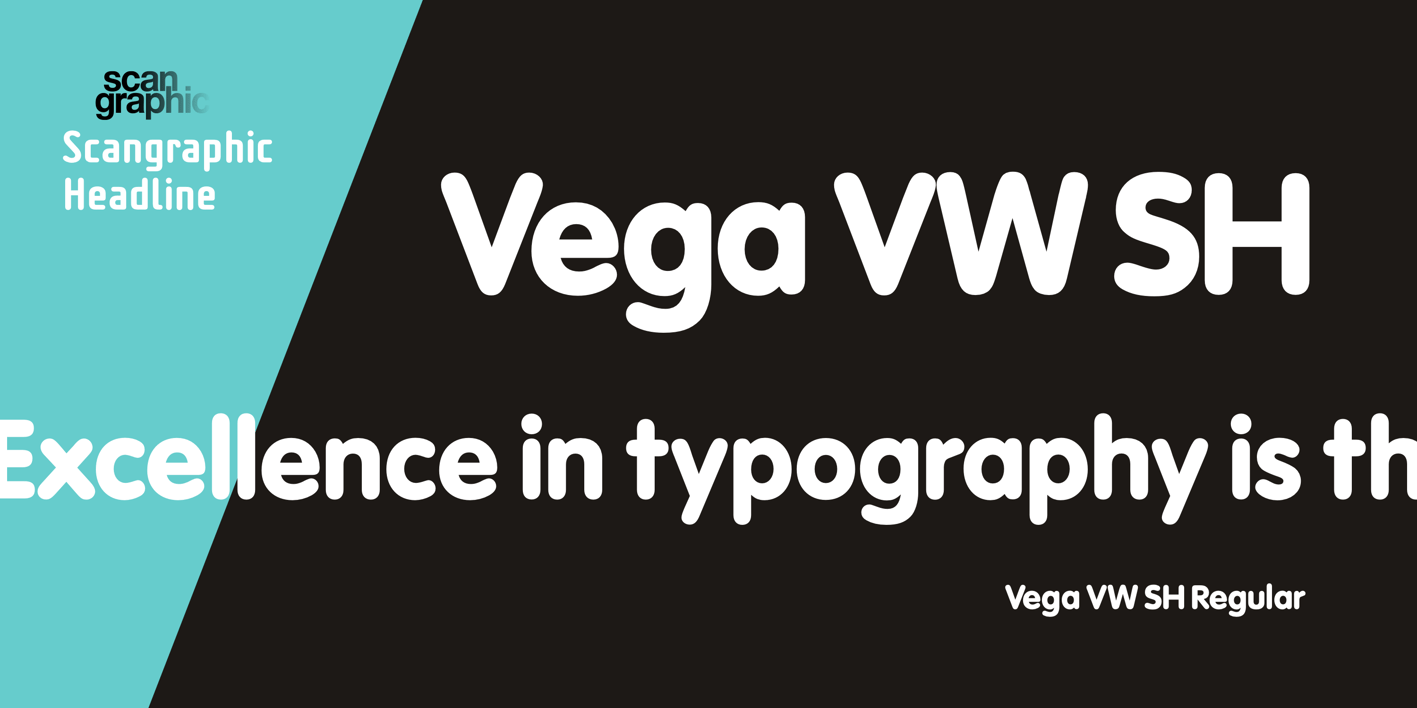
Vega SH Font is perfect for astronomy research publications, space observatory branding, stellar navigation interfaces, cosmic jewelry designs, planetarium exhibition materials, celestial photography credits, star-gazing event promotions, astronomical equipment packaging, space-themed luxury products, and brilliantly stellar marketing communications.
Vega SH Font is exciting because it captures the brilliant luminosity and navigational importance of one of the brightest stars in our night sky with its precisely radiant letterforms that shine with the steady brilliance of stellar light and embody the reliable guidance that Vega has provided to navigators throughout human history. Its luminously sophisticated character design reflects both the scientific precision of astronomical observation and the romantic wonder that draws humanity to contemplate the infinite cosmos, making it perfect for brands celebrating stellar excellence and cosmic inspiration.
Vega SH Font family includes ultra-thin, thin, light, regular, medium, bold, and black weights, each with corresponding italic versions. The font family also features stellar ornaments, astronomical ligatures, celestial symbols, and cosmic decorative elements that enhance its brilliant aesthetic and space-age versatility.
This brilliantly stellar typeface represents the perfect fusion of astronomical precision and cosmic beauty. Vega SH Font Free Download enables designers to explore its stellar possibilities before making a commercial commitment. The font's ability to convey both scientific accuracy and celestial wonder makes it ideal for space organizations, luxury brands, and technology companies targeting audiences fascinated by astronomical excellence and cosmic sophistication.
Whether you're developing space research identities, creating astronomical event materials, or designing cosmic-inspired communications, Vega SH Font brings an unmistakable sense of stellar brilliance and astronomical authority to every project. Its radiant character and celestial heritage create powerful connections that resonate with audiences seeking cosmic inspiration and stellar excellence.
The font's versatility excels in scientific and luxury environments where precision and cosmic appeal are paramount. Its stellar character makes it particularly effective for observatories, space agencies, luxury technology brands, and scientific institutions seeking to establish brilliant relationships with astronomy enthusiasts and audiences passionate about cosmic exploration and stellar phenomena.
For designers working on projects requiring genuine astronomical character and stellar appeal, Vega SH Font provides an exceptional solution. Its brilliant presence and comprehensive stellar elements offer the tools needed for creating truly cosmic communications, while its navigational reliability ensures your designs capture the steady brilliance and astronomical excellence that defines the most trusted stellar guidance and cosmic inspiration experiences.